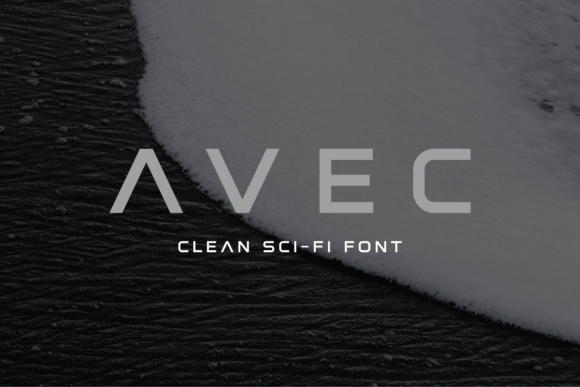
Introducing Avec Font, the perfect choice for all tech enthusiasts and design aficionados! Created by ebaddesigns, this modern blocky yet clean sci-fi font is here to elevate your creative projects to new heights. With its unique style, slightly bold and futuristic appearance, Avec Font will captivate your audience and leave a lasting impression.
When it comes to branding your tech club or crafting a logo that stands out from the crowd, Avec Font is your ultimate secret weapon. Its modern typeface adds a touch of elegance and boldness, making it the ideal choice for creating a logo that reflects your club's innovative and cutting-edge spirit. Whether you're a startup or an established entity, Avec Font will make your logo shine and attract attention like never before.
But that's not all. Avec Font is not just limited to logos. It's a versatile font that can be used across various platforms and media. Imagine the impact it will have on your social media posts, banners, websites, and more. With its captivating and eye-catching design, Avec Font ensures that your message gets noticed, leaving a lasting impression on your audience.
One of the standout features of Avec Font is its ability to evoke emotions. With every stroke and curve, this font tells a story of innovation, progress, and forward-thinking. It sparks curiosity and excitement, creating a sense of anticipation among your viewers. Whether you're launching a new product, showcasing your latest designs, or simply aiming to engage your audience, Avec Font will help you achieve your goals effortlessly.
With its clean and sleek aesthetics, Avec Font is the epitome of modernity. It exudes professionalism and sophistication, making it the perfect choice for businesses and individuals seeking to establish a strong online presence. Stand out from the crowd and make a statement with a font that represents your dedication to excellence and attention to detail.